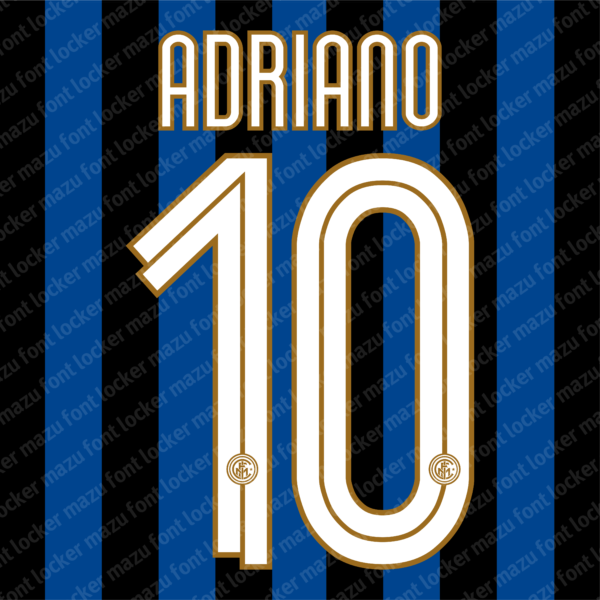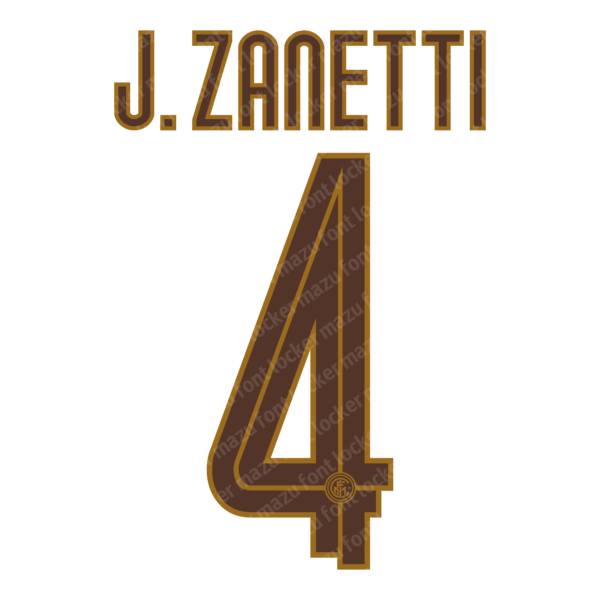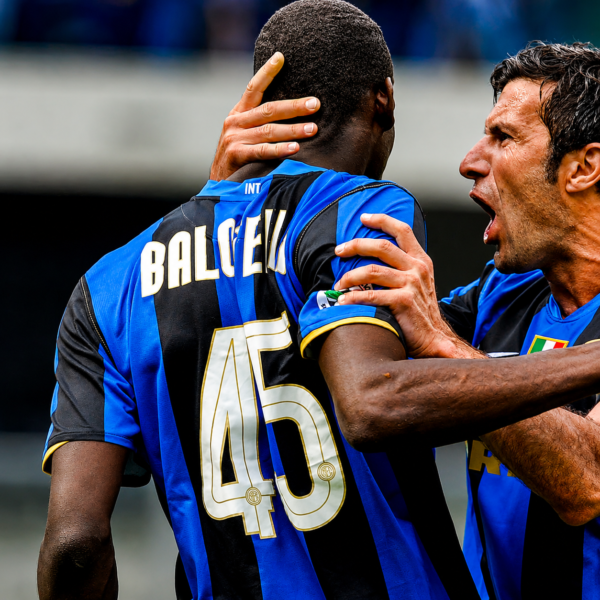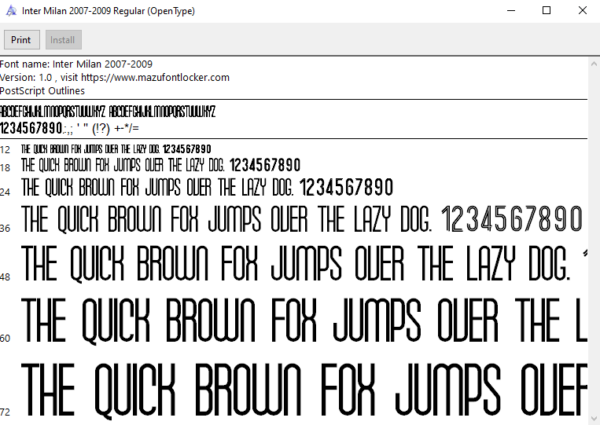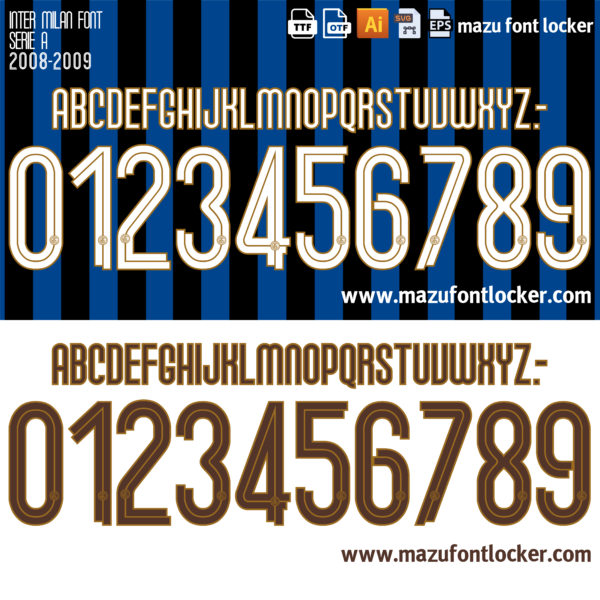
Inter Milan 2008-2009 Font Vector – Dominant Nerazzurri Triumph
Download Inter Milan 2008-2009 Font now and unleash the legendary champion spirit of the Nerazzurri straight into your designs. This premium vector font perfectly captures the bold, dominant, and electrifying identity of Inter Milan during their unforgettable 2008-2009 season. Every letter and number is crafted with razor-sharp precision, powerful lines, and majestic details that reflect the club’s fierce determination, tactical brilliance, and unstoppable momentum under José Mourinho.
Whether you’re creating matchday posters, fan merchandise, custom jerseys, social media graphics, t-shirts, or premium digital artwork, this Inter Milan 2008-2009 Font delivers professional quality with stunning vibrancy and maximum impact. The font masterfully combines modern strength with the authentic black and blue identity of Inter, making every headline roar with true Milano pride and intensity.
Elevate your projects with authentic Nerazzurri DNA and let your creativity thunder like the roar of the San Siro.
Inter Milan 2008-2009 Font Vector
The Inter Milan 2008-2009 Font is a premium, high-precision football jersey font vector meticulously engineered to capture the fearless energy, explosive passion, and electrifying identity of Inter Milan’s historic 2008-2009 campaign.
Inspired by the mighty Nerazzurri and their iconic, high-intensity performances throughout the unforgettable 2008-2009 season, this font unleashes a bold, majestic, and devastatingly powerful presence that radiates unbreakable Inter pride, rich heritage, and unstoppable champion spirit. Every letter and number has been painstakingly recreated with razor-sharp precision to embody the vibrant black and blue identity, relentless winning mentality, and glorious legacy that makes Inter Milan one of the most dominant and feared forces in European football.
Feel the fire of the San Siro. Ignite the passion. Unleash the legendary spirit of the Nerazzurri and the unstoppable power of Inter Milan 2008-2009.
🔥 Inter Milan 2008-2009 Font Features
• Authentic 2008-2009 Inter Milan jersey lettering style
The authentic lettering style helps recreate the classic look of the Inter Milan 2008-2009 kit with professional accuracy.
Unlike generic jersey fonts, this set is designed with a strong focus on authenticity and accuracy. Every detail is based on the original match lettering style used during the 2008-2009, helping designers and collectors create realistic football shirt designs.
This Inter Milan 2008-2009 font vector set is designed for authentic football jersey customization and works perfectly for retro football projects, collector designs, and professional sportswear artwork.